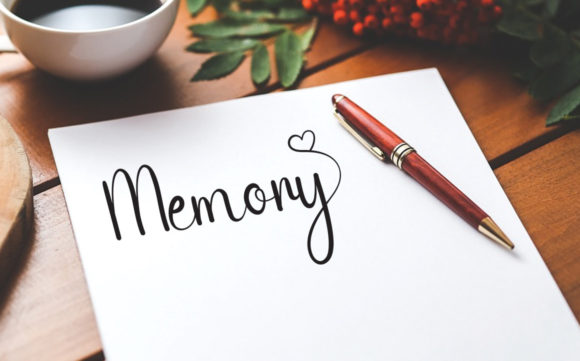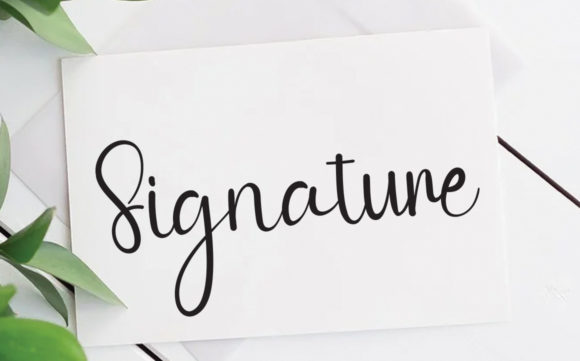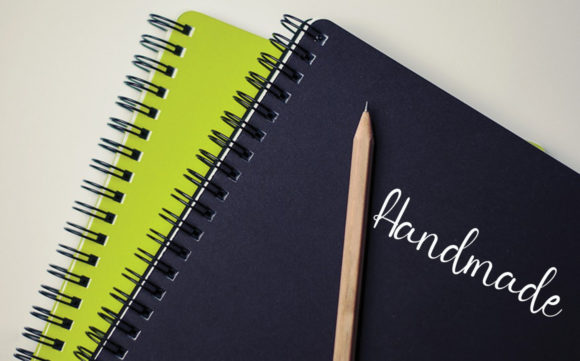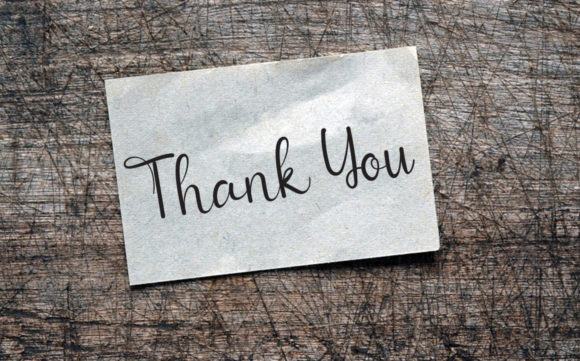
Butterfly is a sweet handwritten font featuring a delicate flow. Use it for wall displays, wedding invitations, social media post logos,
advertisements, product packaging, product designs, labels, photography, watermarks, invitations, stationery, and any project that requires impressive typography.